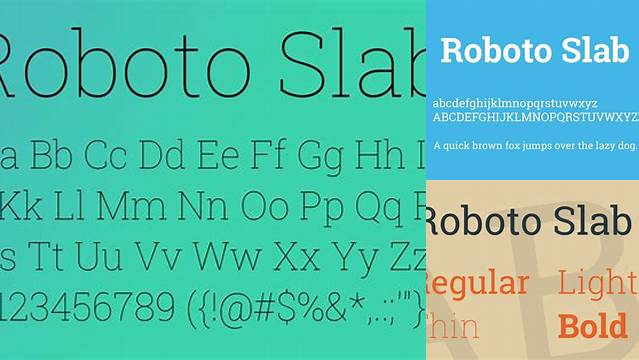
Roboto Slab: Your Ultimate Font Guide
Hey there, font fanatics! Ever stumbled upon a typeface that just speaks to you? Today, we're diving headfirst into the world of Roboto Slab, a font that's become a staple for designers and writers alike. From its elegant serifs to its clean lines, Roboto Slab offers a unique blend of readability and style. This guide is your one-stop shop to everything you need to know about this fantastic font. We'll explore its design, how to use it effectively, where to find it, and even some cool alternatives if you're feeling adventurous. So, grab your favorite beverage, settle in, and let's unlock the secrets of Roboto Slab! Trust me, by the end of this, you'll be a Roboto Slab pro. Let's get started, shall we?
1. What is Roboto Slab? Unveiling the Font's Identity
Alright, guys, let's start with the basics. Roboto Slab is a slab-serif typeface, designed by Christian Robertson for Google. Now, what does that even mean? Well, think of slab serifs as the bolder, more pronounced cousins of traditional serifs. Serifs are those little decorative strokes at the end of letterforms – you know, the tiny lines that give fonts like Times New Roman their classic look. Slab serifs take this a step further, with thicker, more rectangular serifs that create a strong and impactful visual. Roboto Slab, in particular, strikes a balance between being highly readable and visually striking. It's designed to look great both on screens and in print, which is why it's become such a popular choice. Its design is modern, clean, and incredibly versatile. It's like the Swiss Army knife of fonts – you can use it for practically anything! From headlines to body text, Roboto Slab consistently delivers a polished and professional look. It's available in various weights and styles, so you can really tailor it to your specific needs. Whether you're designing a website, creating a brochure, or just writing a document, Roboto Slab is a font that’s hard to go wrong with. Its legibility and distinctive character make it a superb choice for a wide array of projects. Seriously, the variety of weights allow for creative control and the ability to easily adapt to different visual hierarchy and aesthetics. It's a workhorse font, and a beautiful one at that.
2. The Design Philosophy: Understanding Roboto Slab's Aesthetic
So, what makes Roboto Slab tick? Let's delve into the design philosophy behind this awesome font. Christian Robertson, the designer, aimed for a font that was both friendly and functional. He wanted something that felt modern but still retained a certain warmth and approachability. Think of it as a font that wants to be your friend, not intimidate you. The design of Roboto Slab reflects this ethos. It has a geometric feel, but not in an overly rigid or cold way. The curves are gentle, and the letterforms are open and spacious. This contributes significantly to its readability, especially at smaller sizes or on digital screens. The serifs, as we mentioned, are strong but not overpowering. They add a touch of formality and sophistication without sacrificing clarity. Overall, the design philosophy is rooted in simplicity and clarity. The goal was to create a font that serves its purpose without drawing unnecessary attention to itself. This makes it a great choice for brands that want a clean, modern aesthetic. It's also ideal for projects where the content is the star of the show, not the typeface. Its adaptability and aesthetic versatility are a testament to the excellent design choices. A great font should complement the content it presents. The way the font sits on a page and its relationship to other design elements are crucial for visual communication. Roboto Slab performs exceptionally well in that respect.
3. Roboto Slab's Versatility: Usage Across Various Platforms
Alright, let’s talk about where you can actually use Roboto Slab. The cool thing about this font is that it's incredibly versatile. You can use it everywhere! Websites, apps, print materials – you name it. On the web, Roboto Slab performs exceptionally well. Its clarity and legibility make it a great choice for body text, ensuring that your visitors have a smooth reading experience. It also looks fantastic in headlines and subheadings, adding a touch of personality and style. In app design, Roboto Slab can be used to create a clean and modern interface. The various weights and styles allow you to build a clear visual hierarchy, making the user experience intuitive and engaging. Moving into print, Roboto Slab really shines. It's ideal for brochures, flyers, posters, and even books. The strong serifs give it a distinctive look that sets it apart from more common sans-serif fonts. Because it comes in a range of weights, from light to bold, it's easy to ensure that all the text elements of your print designs are readable. Whether you’re designing a business card or an entire magazine spread, Roboto Slab has you covered. It’s also available for free on Google Fonts, so it’s easy to implement in all your projects. It also offers great readability at various sizes and resolutions on different screens. Its simple, clean lines make it visually appealing and easy to read on any device, making it perfect for responsive design.
4. Roboto Slab vs. Roboto: A Comparative Analysis
Now, let's compare Roboto Slab to its sans-serif sibling, the original Roboto. Both fonts are from the same design family, but they have distinct characteristics. Roboto, as a sans-serif font, has a clean, modern look. It's often used for a more minimalist aesthetic. It excels in digital interfaces where clarity and simplicity are paramount. It’s very popular for its readability on screens of various sizes. Roboto Slab, on the other hand, has a bolder, more structured feel because of its slab serifs. It brings a touch of formality and distinctiveness to its design. While both fonts are designed for clarity, Roboto Slab offers a slightly more impactful visual presence. Choosing between the two depends on your design needs. If you want something super clean and modern, Roboto is an excellent choice. If you want to add a touch of personality and make a stronger visual statement, Roboto Slab might be a better fit. Often, designers will use both in the same project, pairing them for different text elements. For example, using Roboto Slab for headlines and Roboto for body text can create a balanced and visually engaging composition. So, it’s all about the context. Both are incredibly versatile fonts designed to make your content look amazing.